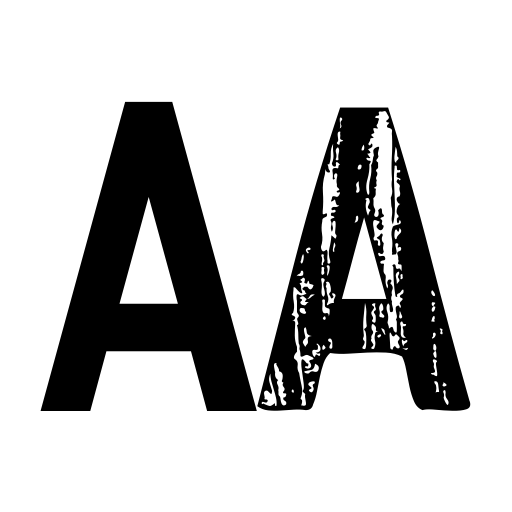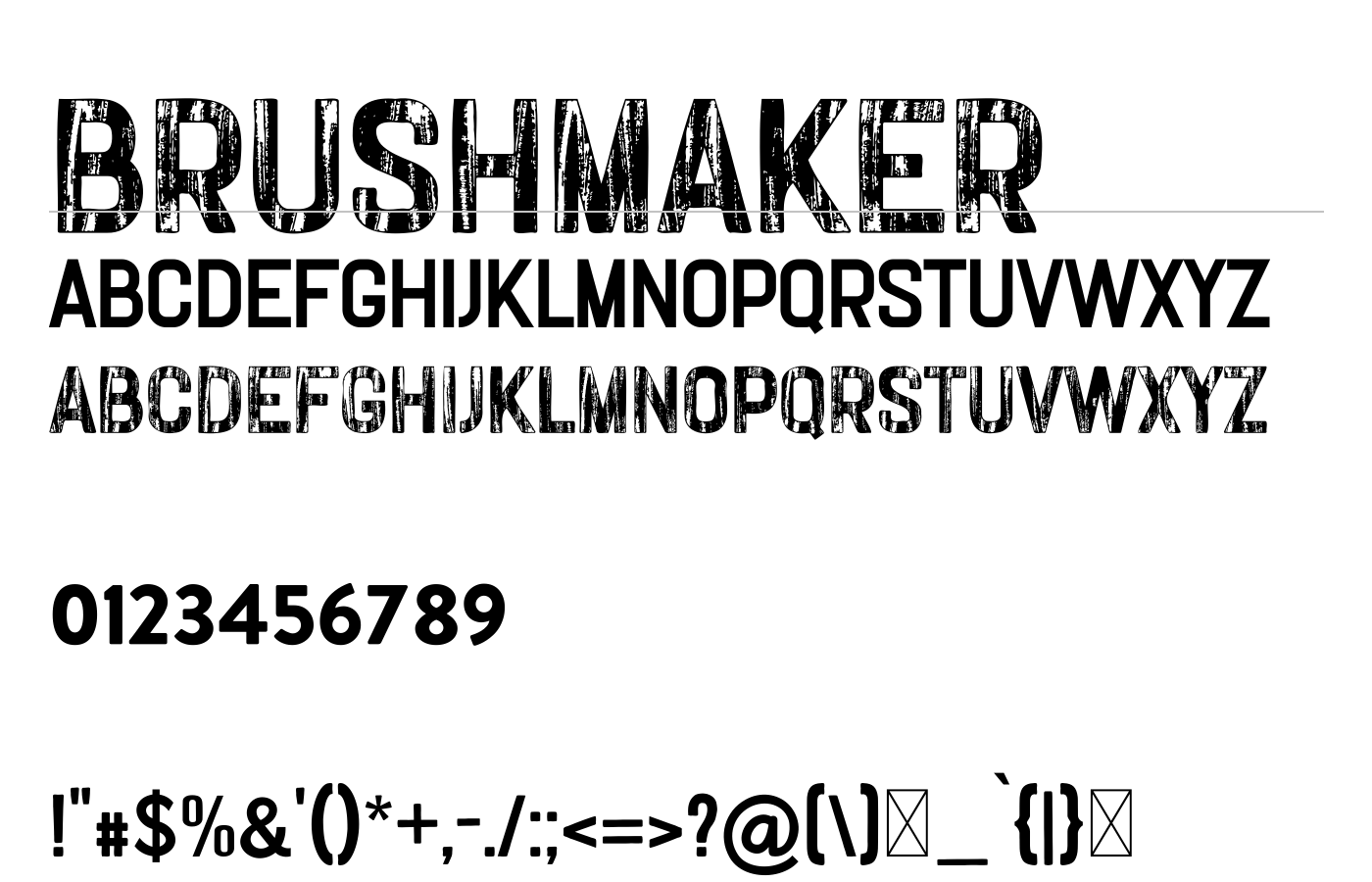
Brushmaker is a bold, condensed sans serif font with a rugged textured style that looks hand-brushed and distressed. Its all-uppercase design features strong geometric shapes with a gritty, worn effect, making it perfect for creating a striking, urban, or vintage vibe in logos, posters, or headlines. This font stands out where a tough, artistic personality is needed while maintaining clear readability.
brushmaker Font
About brushmaker Font